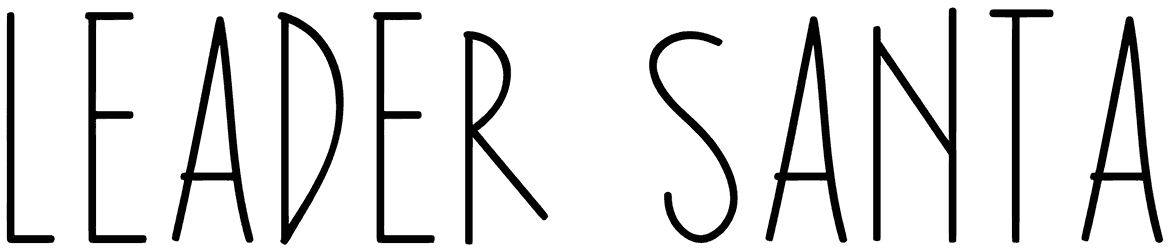
Leader Santa Font
Sweet and casual words might be an apt choice to communicate with your audience, especially when you want to impress kids. The present bullet journal font, named Leader Santa, is able to give such a vision to your text a…
Sweet and casual words might be an apt choice to communicate with your audience, especially when you want to impress kids. The present bullet journal font, named Leader Santa, is able to give such a vision to your text and make it cute. This minimal script font doesn’t cover lowercase letters and numbers, yet it’s going to serve you as a ravishing item for different designs, like a baby shower invitation flyer.